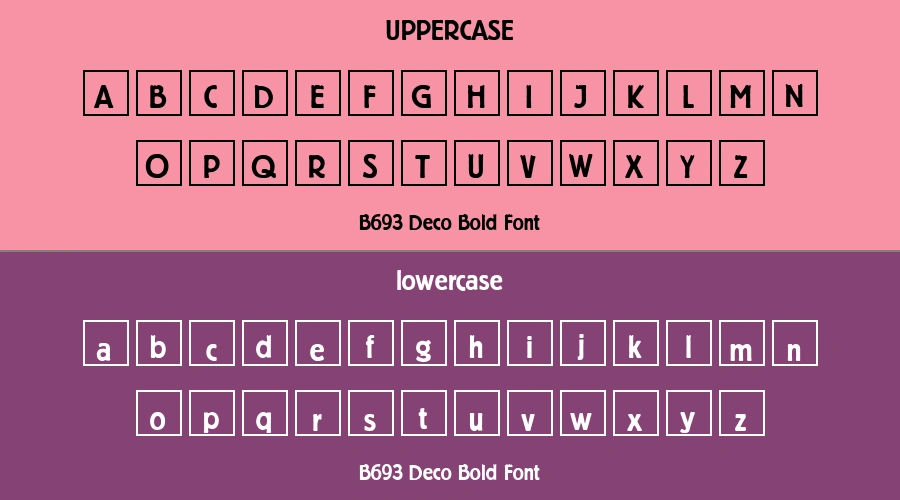
About B693 Deco Bold Font
B693 Deco Bold Font embodies typographic excellence through its masterful combination of commanding presence and reliability. Created for traditional magazines, this typeface delivers exceptional versatility and consumer connection across all applications. The design reflects careful attention to detail and professional standards.
Advanced capabilities include distinctive rhythmic patterns and versatile terminal forms, giving designers creative control. When used in featured quotes, B693 Deco Bold Font exhibits remarkable hinting quality. The harmonious balance between stroke contrast and cultural resonance sets this typeface apart.